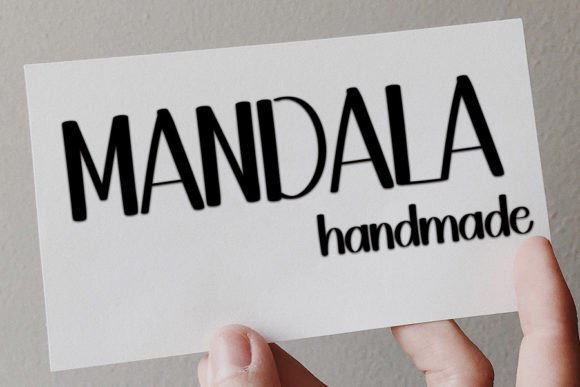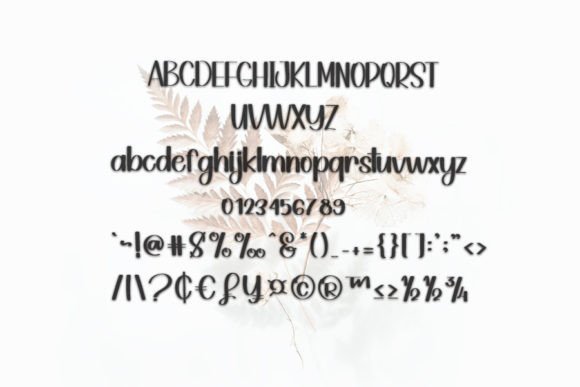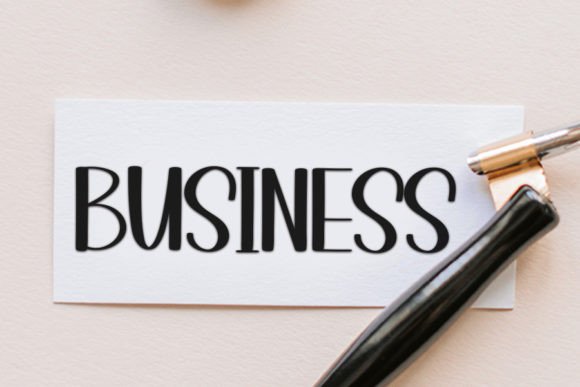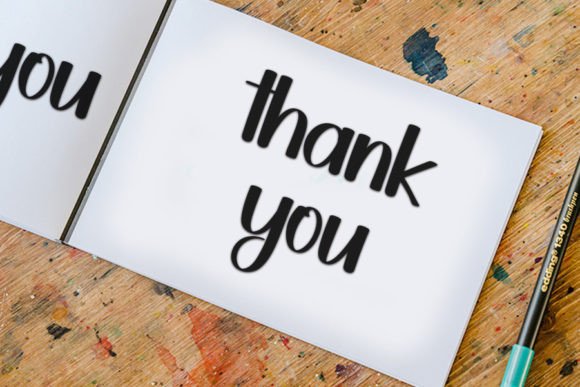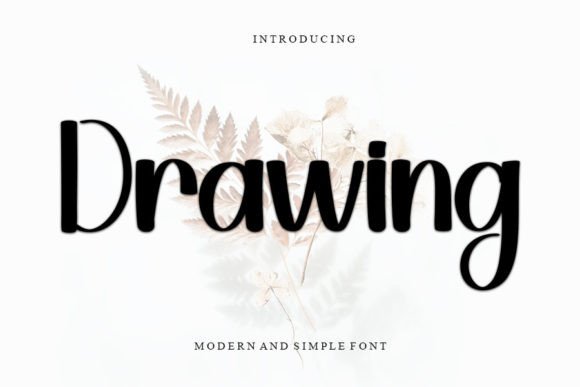
Discover the Charm of Drawing Font: Elevate Your Designs with Elegance
Are you on the hunt for a font that adds a touch of sophistication and whimsy to your projects? Look no further than the Drawing Font, a stunning handwritten font that embodies the perfect blend of elegance and playfulness. In this article, we’ll dive into the world of Drawing Font, exploring its unique features, and how you can harness its beauty to create breathtaking designs that capture the hearts of your audience.
The Essence of Drawing Font
Drawing Font is a neat and beautiful handwritten font, characterized by an elegant touch that sets it apart from other fonts. Its incredibly distinct and timeless style makes it an ideal choice for designers and crafters seeking to add a personal touch to their work. Whether you’re creating invitations, branding materials, or digital content, Drawing Font is sure to make your designs shine.
What Makes Drawing Font So Special?
So, what makes Drawing Font so special? Here are a few key features that set it apart:
• Elegant Handwritten Style: Drawing Font boasts a beautiful, handwritten aesthetic that’s both refined and approachable.
• Unique Character Set: Each letter, number, and symbol in Drawing Font has been carefully crafted to ensure a cohesive and stylish look.
• Timeless Appeal: Unlike trendy fonts that quickly go out of style, Drawing Font’s classic charm ensures it remains relevant for years to come.
• Versatility: Drawing Font can be used for a wide range of projects, from digital designs to print materials.
How to Use Drawing Font in Your Designs
Now that you’re familiar with the beauty of Drawing Font, let’s explore some creative ways to incorporate it into your designs:
• Wedding Invitations: Add a touch of romance to your wedding invitations, save-the-dates, and thank-you cards with Drawing Font.
• Branding Materials: Use Drawing Font to create elegant logos, business cards, and letterheads that reflect your brand’s personality.
• Digital Content: Elevate your blog posts, social media graphics, and email newsletters with Drawing Font’s elegant touch.
• Crafting Projects: Incorporate Drawing Font into your crafting projects, such as handmade cards, scrapbooking, and DIY decor.
Tips for Getting the Most Out of Drawing Font
To ensure you get the most out of Drawing Font, here are some expert tips:
• Pair it with Contrasting Fonts: Combine Drawing Font with bold, sans-serif fonts to create a striking contrast.
• Experiment with Colors: Try pairing Drawing Font with pastel colors, metallic accents, or rich jewel tones to add depth and visual interest.
• Play with Texture: Add texture to your designs by layering Drawing Font over backgrounds, patterns, or illustrations.
In conclusion, Drawing Font is a beautiful, elegant handwritten font that’s perfect for designers and crafters seeking to add a touch of sophistication to their projects. With its unique character set, timeless appeal, and versatility, Drawing Font is sure to become a staple in your design toolkit. So why wait? Fall in love with Drawing Font and start creating spectacular designs that capture the hearts of your audience!